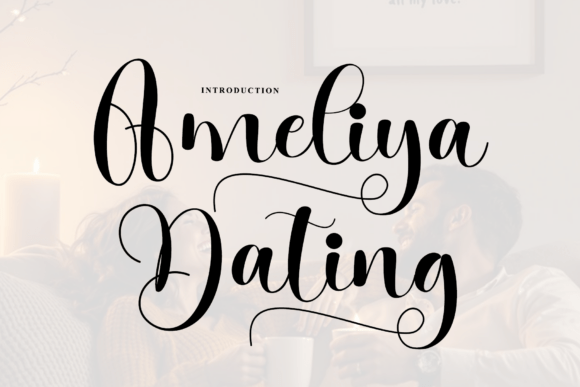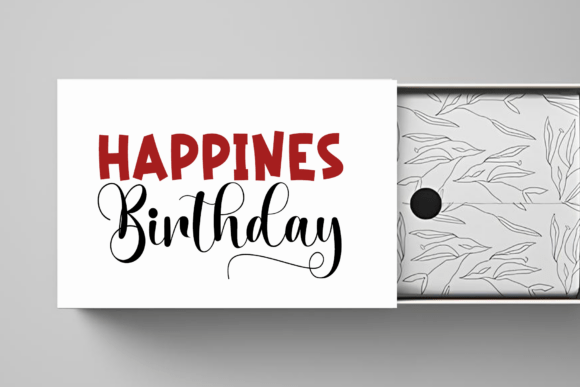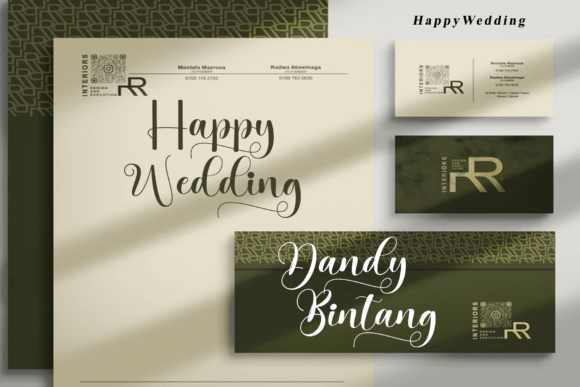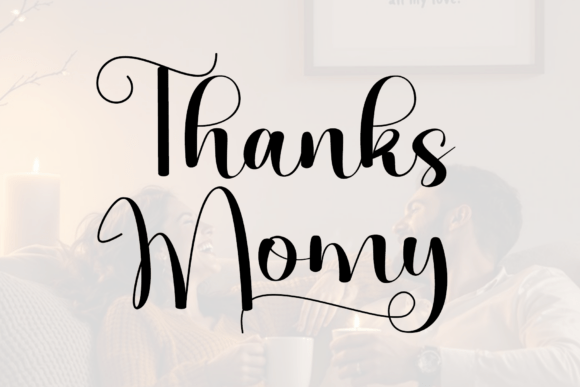
Introducing Ameliya Dating Font: The Epitome of Elegance and Sophistication
In the realm of typography, few fonts have managed to strike a balance between elegance and warmth. Ameliya Dating Font is one such exceptional typeface that seamlessly blends calligraphic flair with an organic aesthetic, making it a premier choice for designers and crafters seeking to elevate their visual creations.
The Distinctive Characteristics of Ameliya Dating Font
Ameliya Dating Font boasts a sophisticated and rhythmic script that is characterized by high-contrast visual rhythm. This is achieved through the juxtaposition of thick, grounded downstrokes and delicate hairline connectors, creating a visually appealing dynamic. The font’s defining feature, however, is the use of sweeping, looping ascenders that imbue the text with a sense of customized, artisanal artistry.
Crafting a Unique Visual Identity
The distinctive looping ascenders in Ameliya Dating Font are not merely a stylistic choice; they are a deliberate design element that sets this font apart from others in the script category. These ascenders create a fluid, connected feel that evokes the artistry of hand-crafted typography. This unique characteristic makes Ameliya Dating Font an excellent choice for applications where a personal touch is desired, such as artisanal food branding, boutique product packaging, and upscale lifestyle marketing.
Applications for Ameliya Dating Font
Given its sophisticated yet warm aesthetic, Ameliya Dating Font is versatile and can be applied across various design projects. Some of the ideal applications for this font include:
- Artisanal Food Branding: The font’s organic feel and elegant appearance make it perfect for labeling gourmet foods, specialty beverages, and artisanal products.
- Boutique Product Packaging: For luxury goods, handmade products, and unique items, Ameliya Dating Font offers a typographic solution that communicates exclusivity and high-end quality.
- Upscale Lifestyle Marketing: In advertising and marketing materials aimed at a refined audience, this font can add a touch of sophistication and class.
- Creative Editorial Titles: For magazines, blogs, and digital publications focusing on lifestyle, fashion, and art, Ameliya Dating Font can serve as a captivating title font that draws readers in.
Why Choose Ameliya Dating Font?
Choosing a font for a design project involves considering legibility, aesthetic appeal, and the message the font conveys. Ameliya Dating Font checks all these boxes and more:
- Legibility: Despite its calligraphic nature, Ameliya Dating Font maintains a high level of legibility, making it suitable for both headings and body text.
- Aesthetic Appeal: Its unique blend of thick and thin strokes, coupled with looping ascenders, gives it a standout aesthetic appeal that can elevate any design.
- Versatility: Ameliya Dating Font can be used across a range of mediums, from digital platforms to print materials, without losing its charm.
Ameliya Dating Font is more than just a typeface; it’s a design statement that combines the elegance of calligraphy with the warmth of organic aesthetics. Its unique characteristics, including high-contrast visual rhythm and sweeping ascenders, make it an excellent choice for designers and crafters looking to add a touch of sophistication and artisanal charm to their projects. Whether you’re working on artisanal food branding, boutique product packaging, upscale lifestyle marketing, or creative editorial titles, Ameliya Dating Font is poised to become your go-to typeface for creating visually stunning and memorable designs.